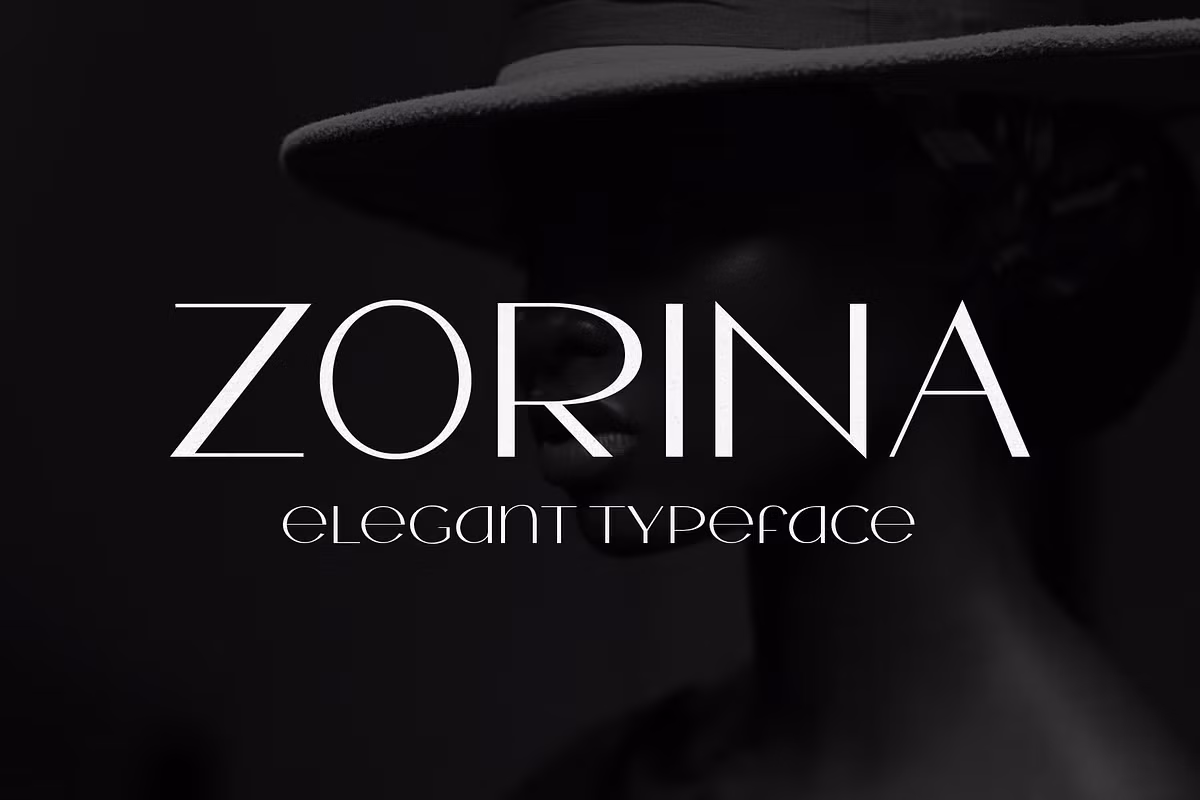
Zorina - Elegant Fashion Typeface Free Download
Zorina - Elegant Fashion Typeface Free Download is a luxurious and refined typeface crafted for high-end design projects. With its graceful curves, tall letterforms, and sophisticated flair, this font is perfect for fashion branding, editorial spreads, beauty product packaging, and upscale social media content. Zorina exudes modern elegance while maintaining a classic charm that resonates across stylish, trend-driven visuals.
Designers love Zorina - Elegant Fashion Typeface Free Download for its ability to instantly elevate any layout with a sense of poise and professionalism. Its clean lines and subtle contrast make it highly readable while still feeling exclusive and artful.